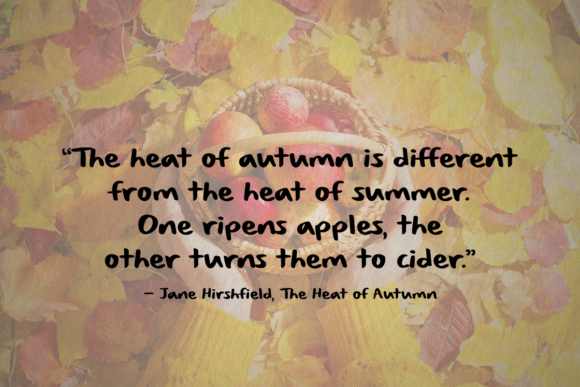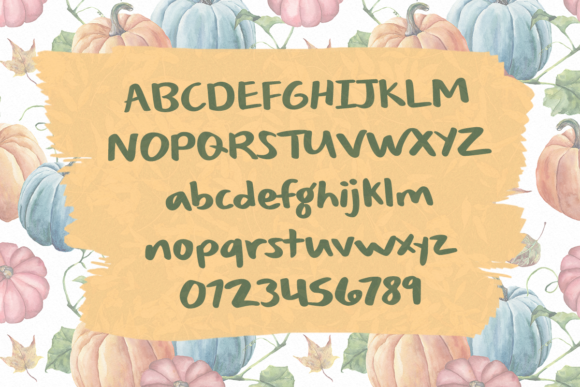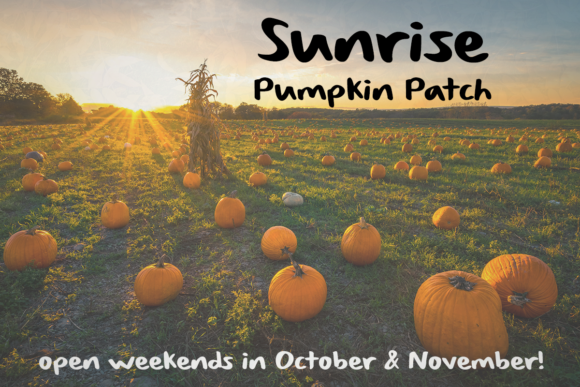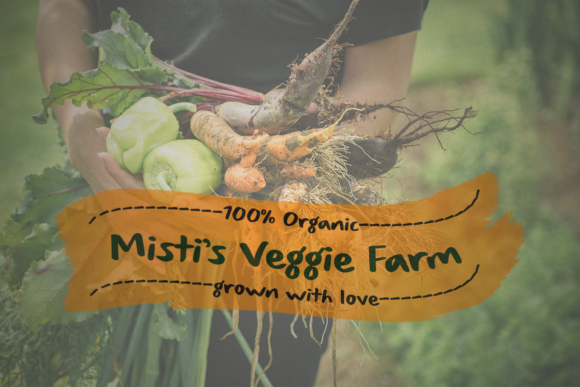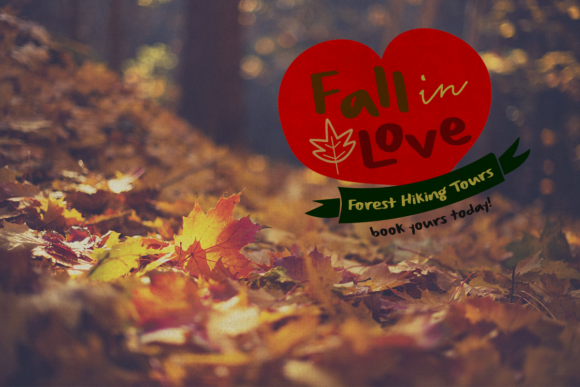
Introduction to Sizable Quantity Font
Have you ever found yourself in a creative rut, staring at a blank canvas or screen, desperately seeking the perfect font to bring your vision to life? For designers, this moment is all too familiar. It’s the moment when a project’s potential is held hostage by a lackluster font, and the only thing that can save it is a game-changer – like the Sizable Quantity Font.
This organic handcrafted typeface is more than just a design resource; it’s a key to unlocking authentic, high-quality visuals that elevate your creative project to new heights. With its unique, marker-like aesthetic, Sizable Quantity Font is perfect for adding a touch of personality to your logos, advertisements, social media graphics, and websites.
What sets Sizable Quantity Font apart is its versatility and the fact that it’s available for free download, making it an accessible design resource for designers of all levels. Whether you’re working on a personal project or a client brief, this font is sure to deliver a professional look that’s enhanced by its transparent background, allowing your design to truly shine.
Key Features of Sizable Quantity Font
- High-quality design resource ideal for creative projects requiring a professional touch
- Sizable Quantity Font comes with a transparent background, allowing for seamless integration into any design
- High resolution: 300 DPI, ensuring crisp and clear text rendering on various devices
- Designed to cater to a sizable quantity of text, making it perfect for long-form content and publications
Honest Review: Sizable Quantity Font
As a designer, I’ve had my fair share of exploring various design resources. Recently, I stumbled upon the Sizable Quantity Font, and I must say it’s been a pleasant discovery.
- High-quality typography: The font’s clean lines and smooth curves make it perfect for creative projects that require a sophisticated look.
- Transparent background: This feature allows for seamless integration with any design element, giving me more flexibility in my design process.
However, I do have a few reservations about this font:
- Limited language support: The font only supports a few languages, which might be a concern for designers working on projects that require multilingual support.
- No bold or italic variants: While the regular weight is excellent, I wish there were more options for emphasizing text or creating contrast.
Overall, I’d say the Sizable Quantity Font is a great addition to any designer’s toolkit. Its high-quality typography and transparent background make it a versatile design resource. While it has some limitations, I believe it’s a solid choice for creative projects that require a clean and sophisticated look.
Tips for Getting the Most Out of Sizable Quantity Font
Use Sizable Quantity Font to add a touch of elegance to your designs. Experiment with different font sizes and styles to create a unique look. You can also use it as a design resource for your creative projects. Download the font for free and use it in your personal or commercial projects.
Sizable Quantity Font is perfect for use in presentations, posters, and flyers. It’s also great for use in social media graphics and blog posts. With its high-quality design and transparent background, you can create stunning visuals for your creative projects.